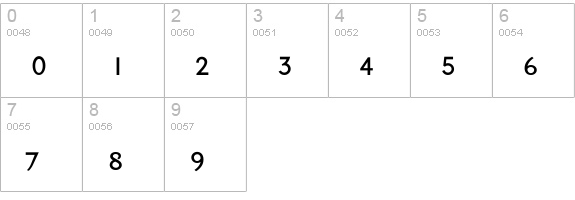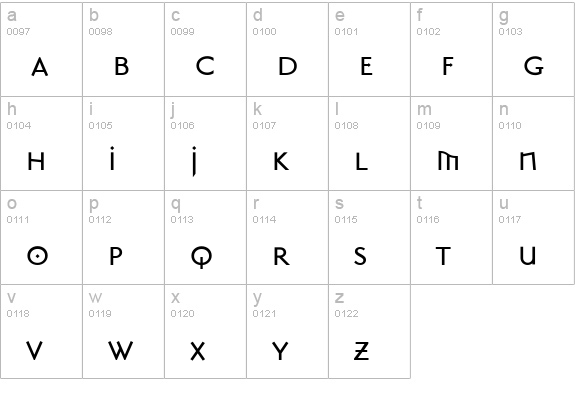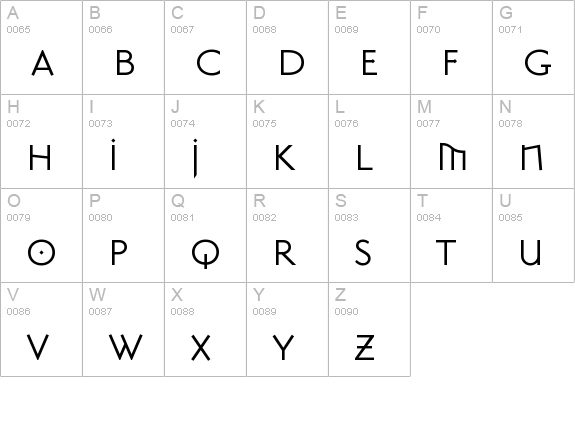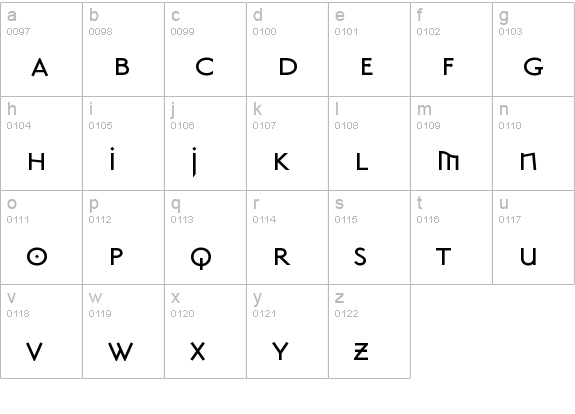
MasonSansAlternate Font Details
Introducing MasonSansAlternate, a captivating and versatile font that is sure to make your designs stand out from the crowd. With its sleek and modern design, this font is perfect for a wide range of projects, from branding and advertising to web design and social media graphics. MasonSansAlternate offers a unique and distinct look, with its clean lines and bold letterforms. Its alternate characters add an extra touch of creativity, allowing you to experiment and create truly unique typography. Whether you're designing a logo, a poster, or a website, MasonSansAlternate is the perfect choice to bring your vision to life. And the best part? MasonSansAlternate is completely free! That's right, this stunning font is freely available to download at FontsMarket.com. Say goodbye to expensive licensing fees and hello to unlimited creative possibilities. So why wait? Download MasonSansAlternate today and unleash your creativity like never before. Whether you're a professional designer or just starting out, this font is sure to become your go-to choice for all your design needs. Don't miss out on this incredible opportunity to enhance your projects with MasonSansAlternate. Get it now and let your imagination run wild.